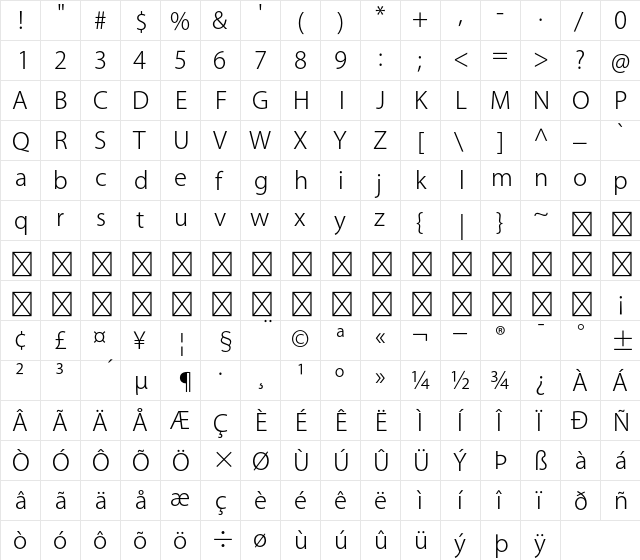
Kozuka Gothic Pr6N L
| Designer | Masahiko Kozuka |
Design Context for Kozuka Gothic Pr6N Typeface
Kozuka Gothic Pr6N has the quiet confidence of well-executed sans-serif typography: versatile, unobtrusive, and dependable at any size.
Font Pairing: Works well alongside a characterful serif or display font that can carry the expressive load while Kozuka Gothic Pr6N handles the functional copy.
Pro Tip: Use Kozuka Gothic Pr6N for UI labels, navigation, and short-form body copy where clean legibility is the priority.